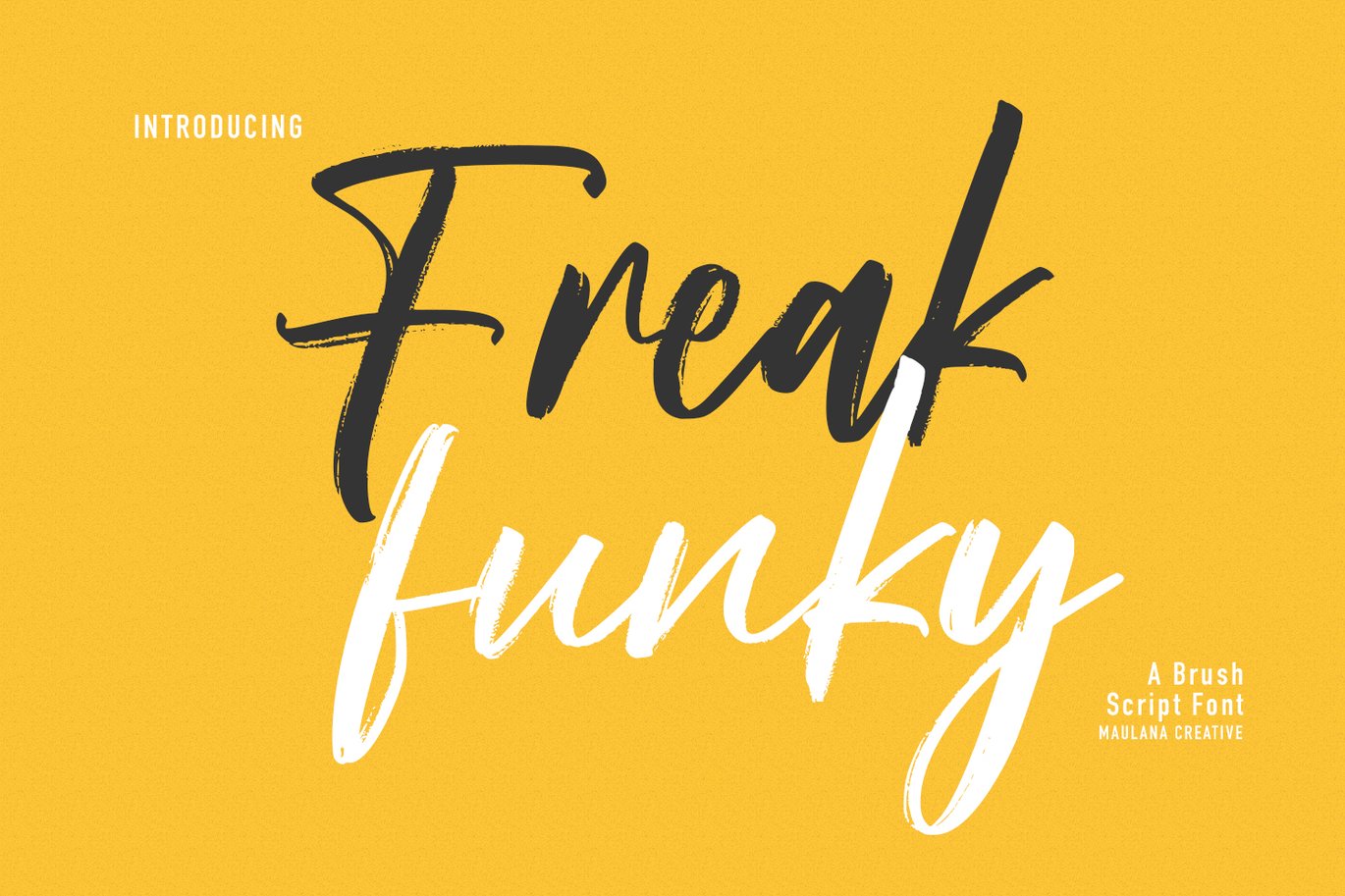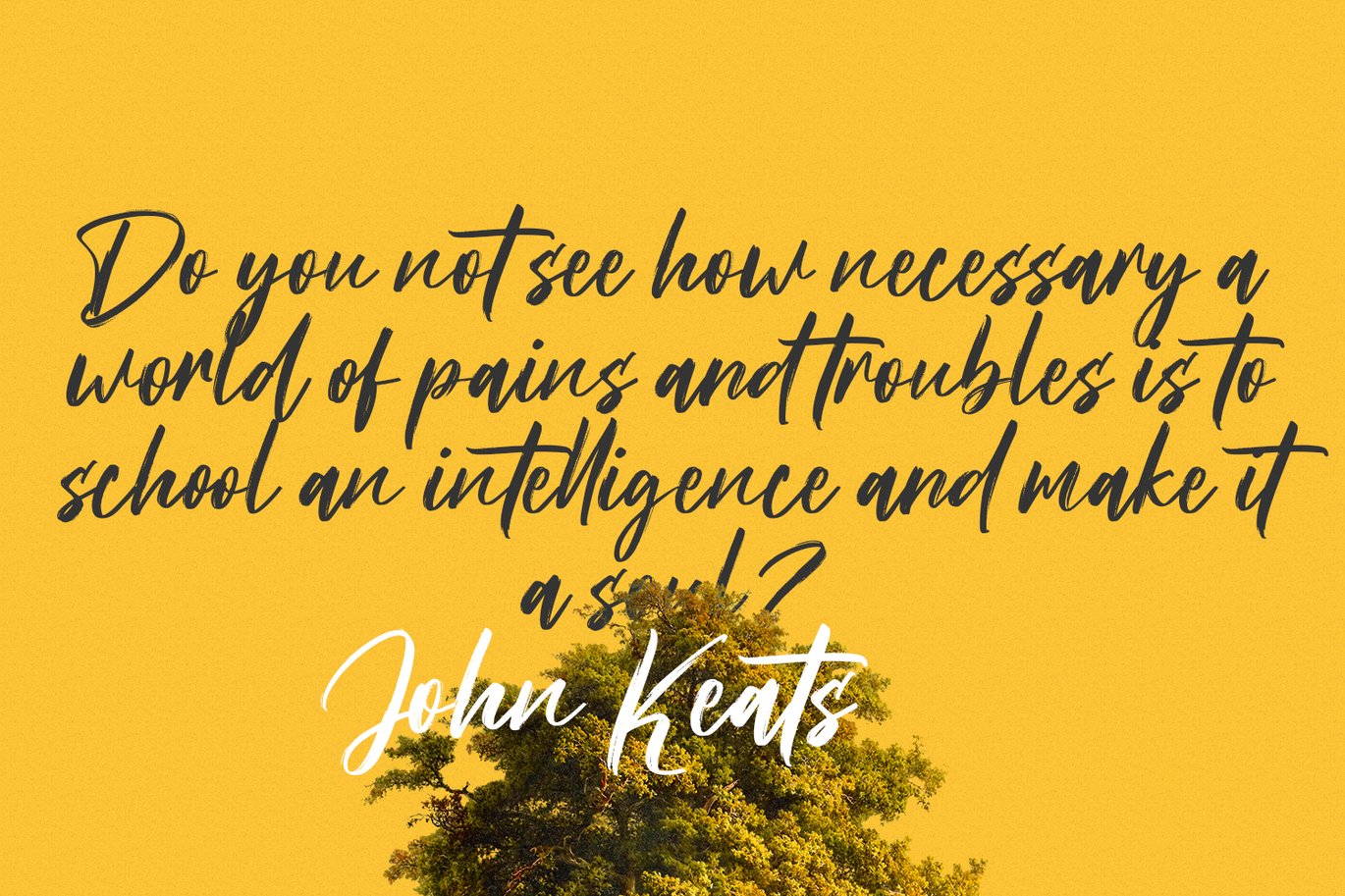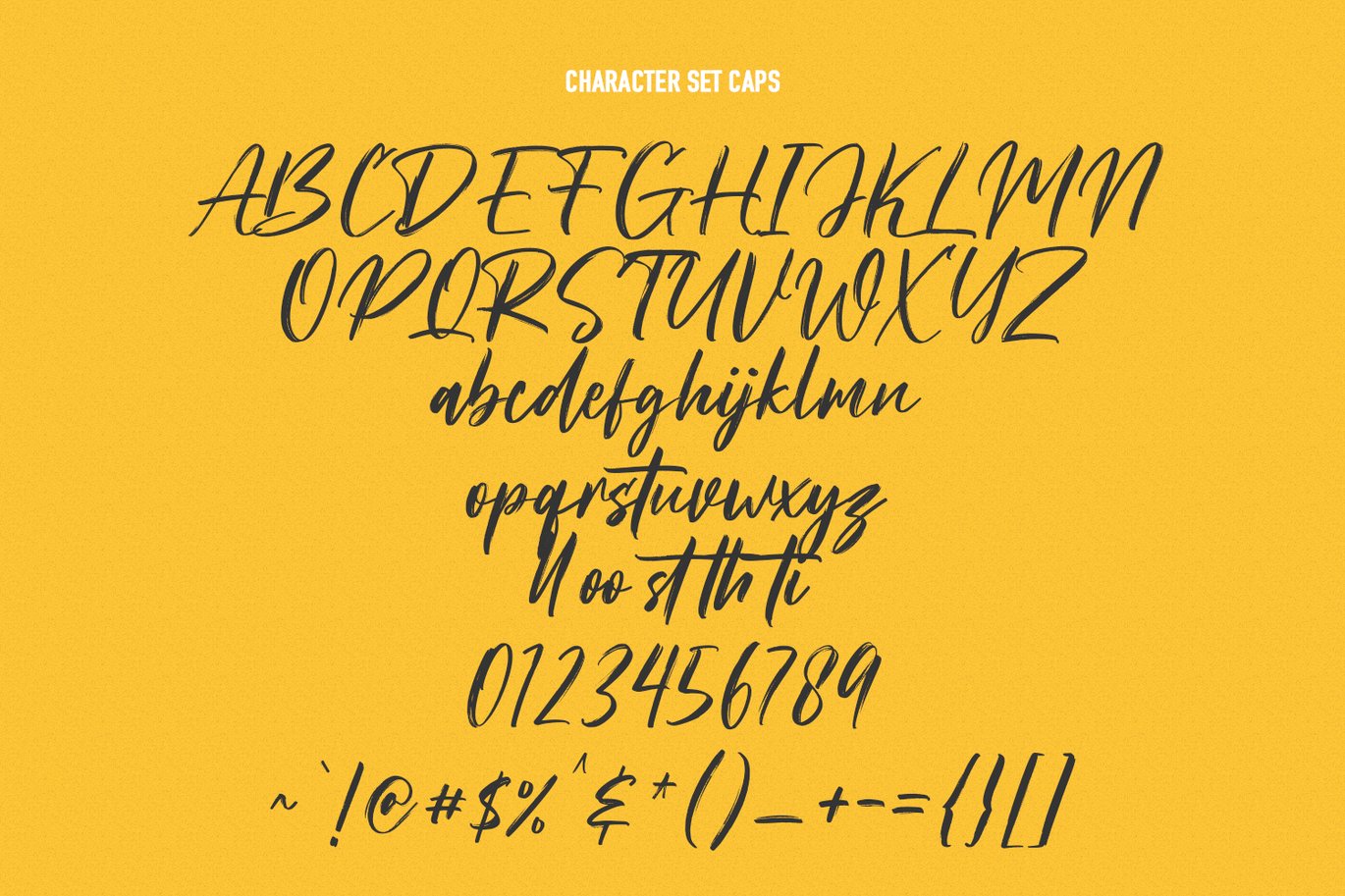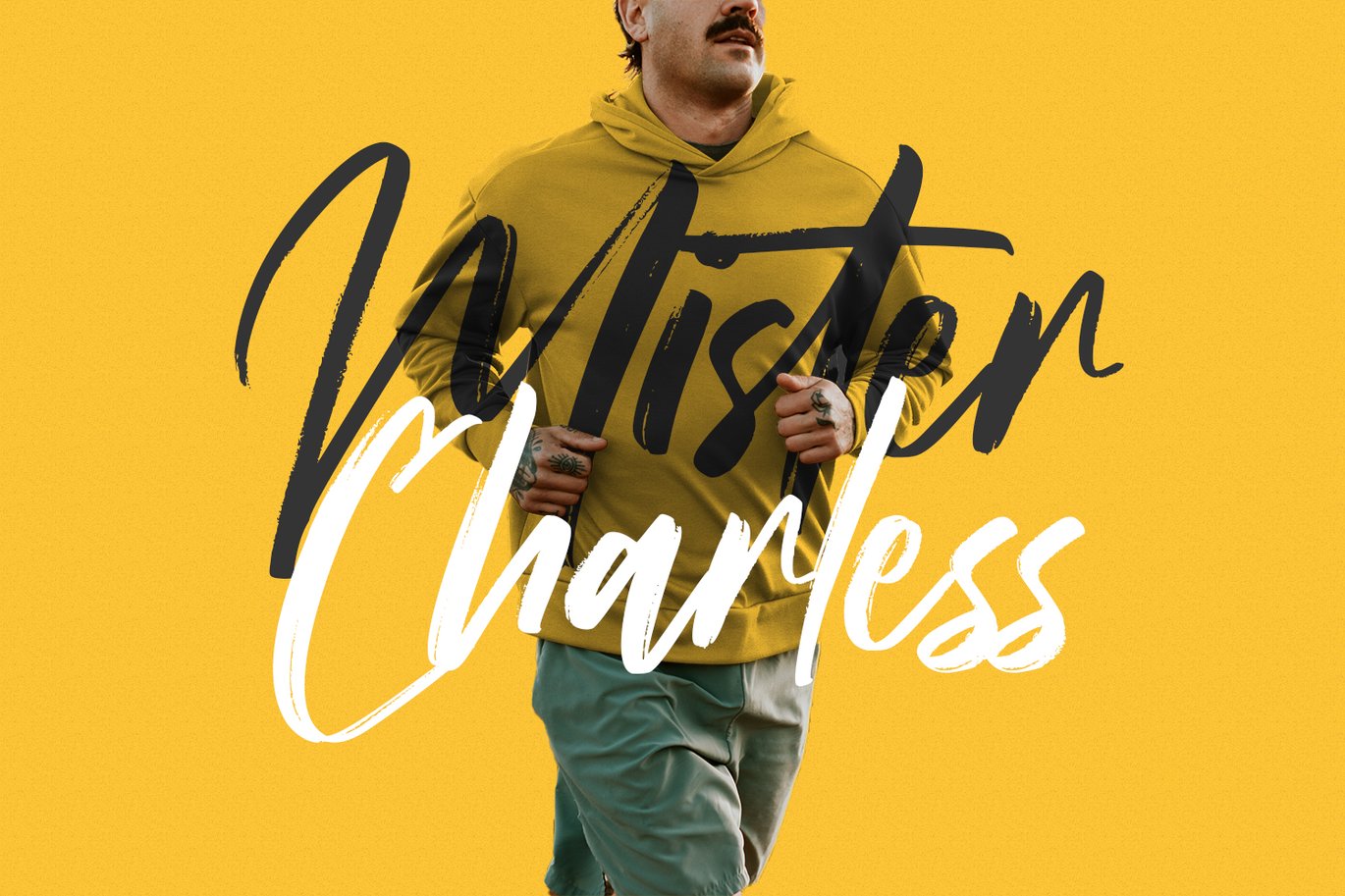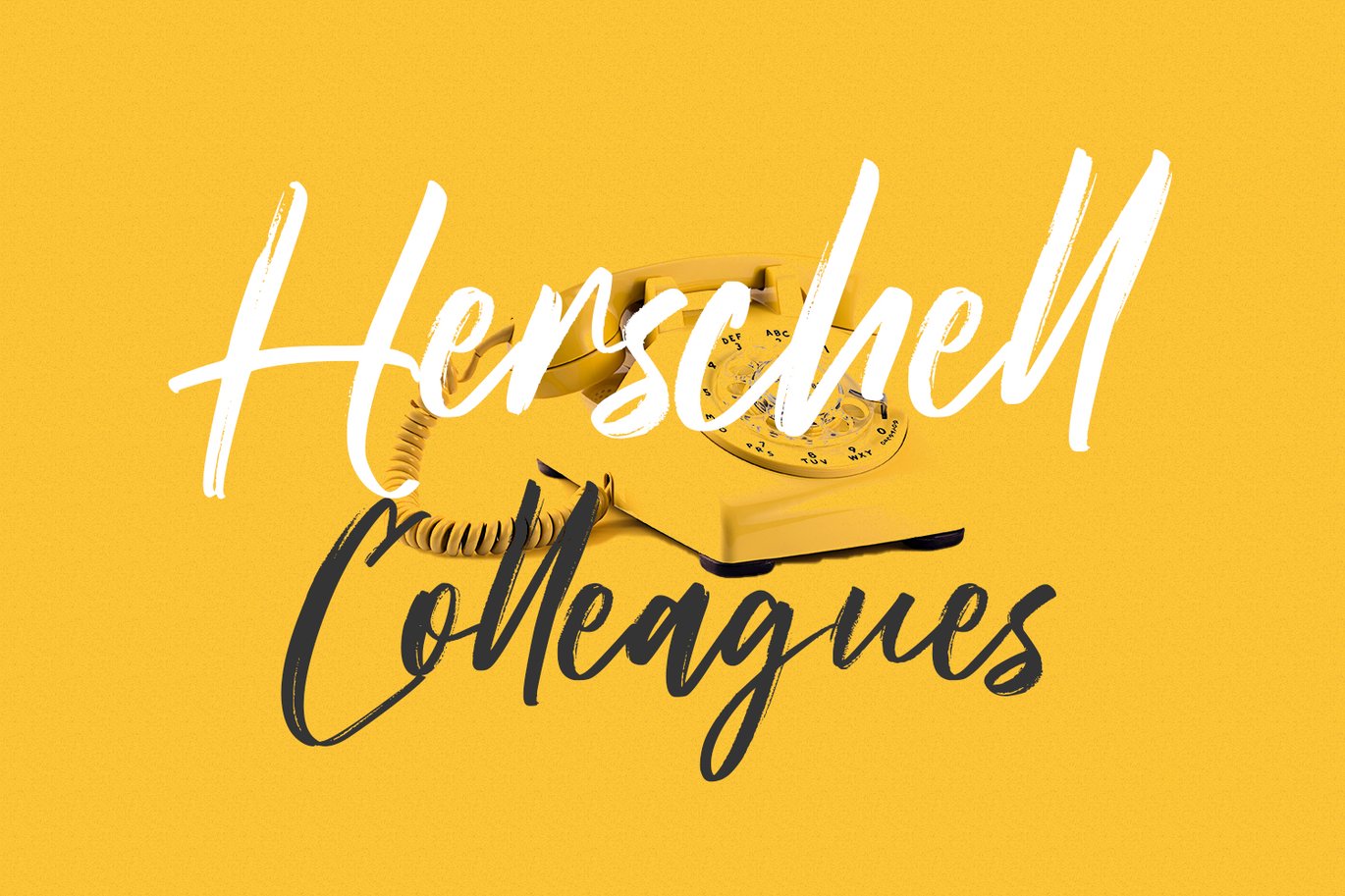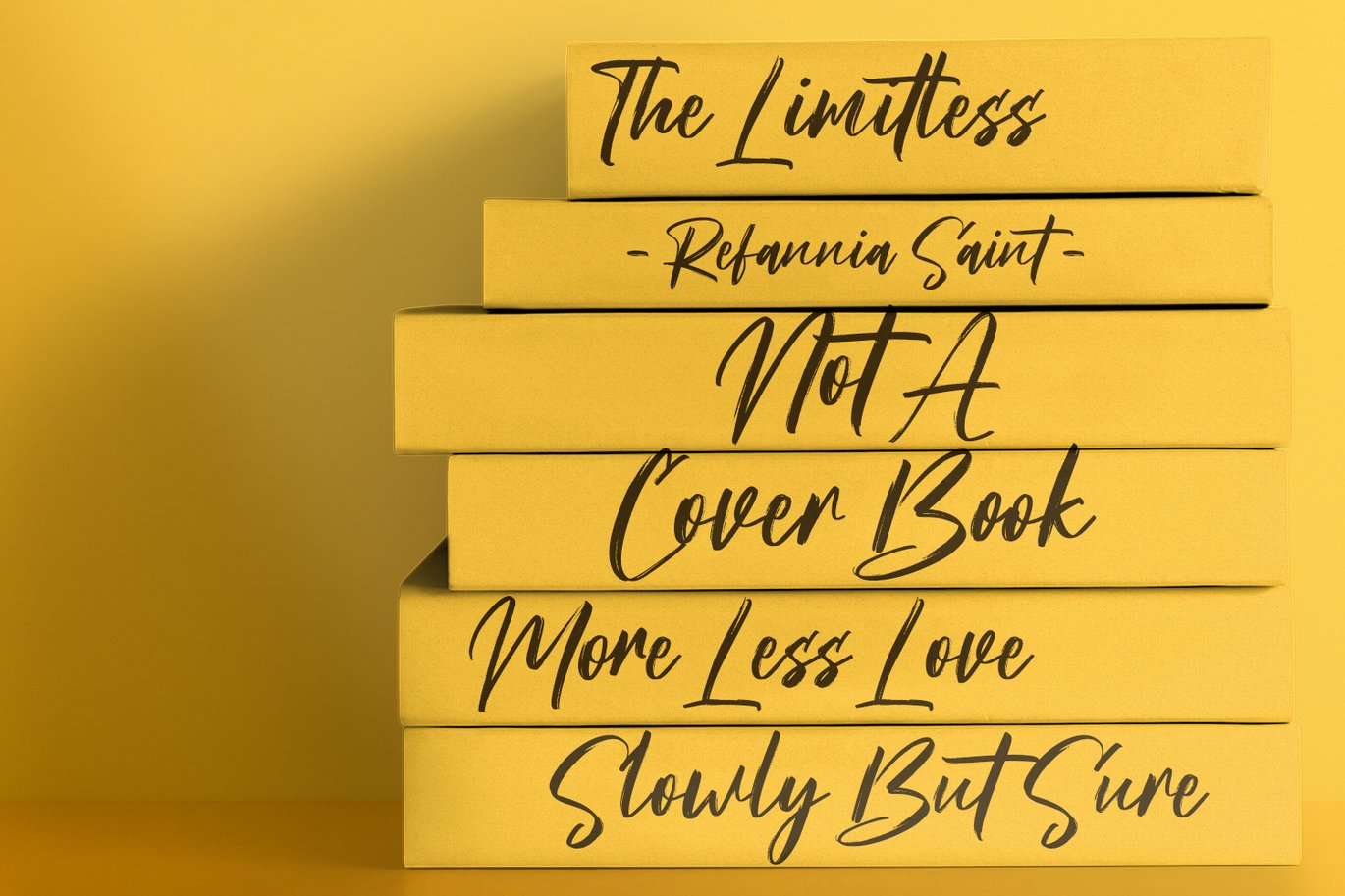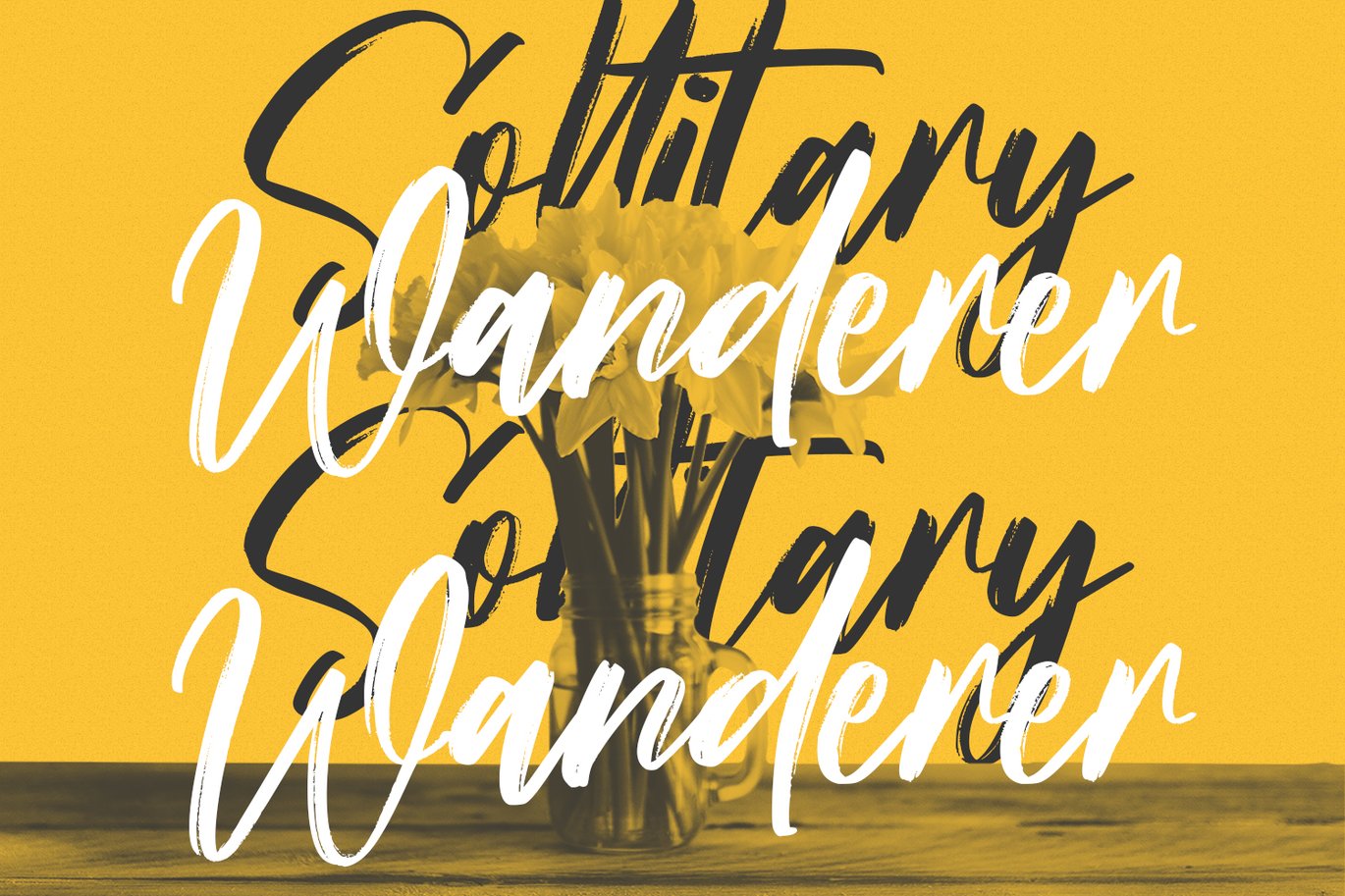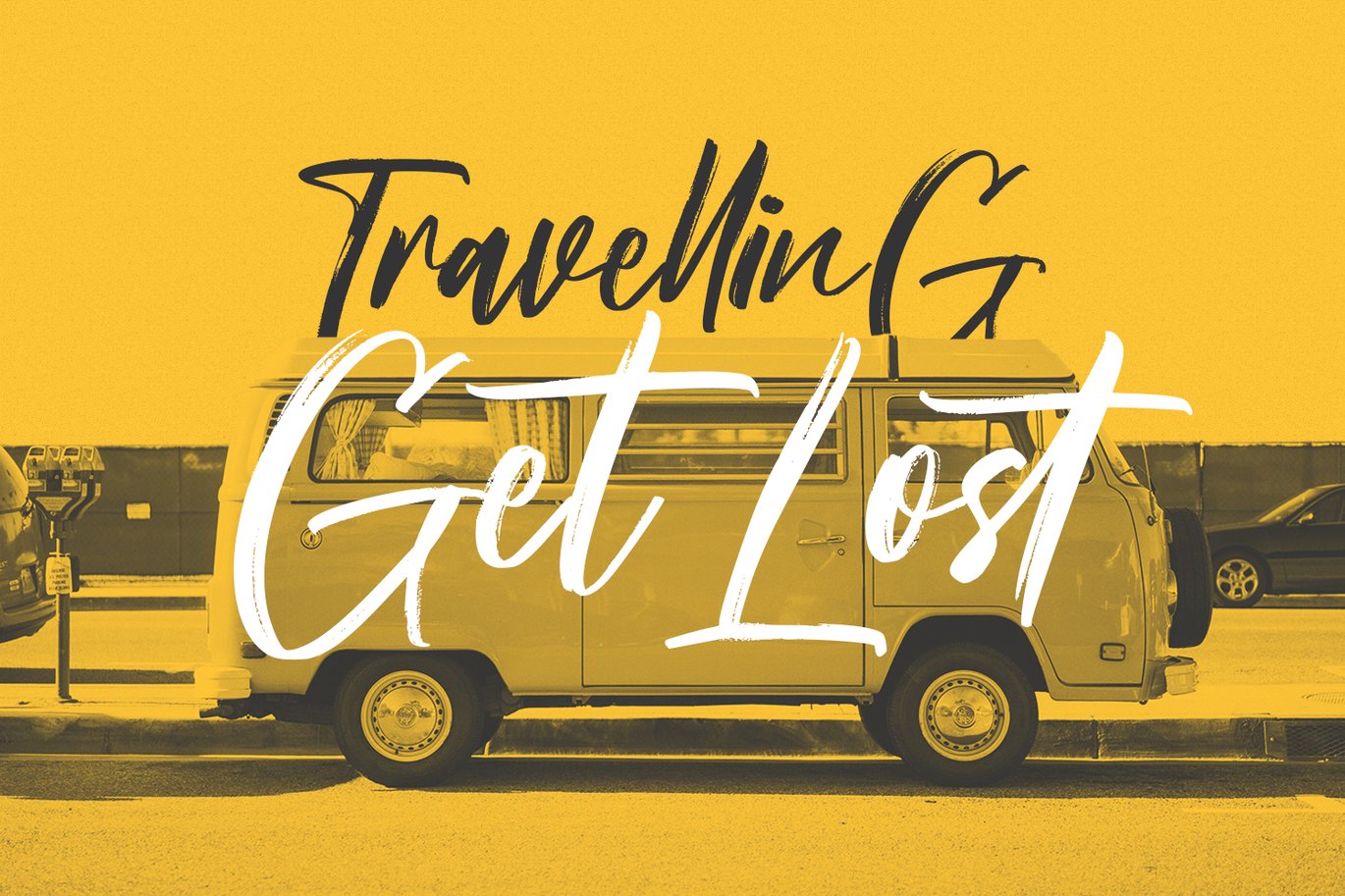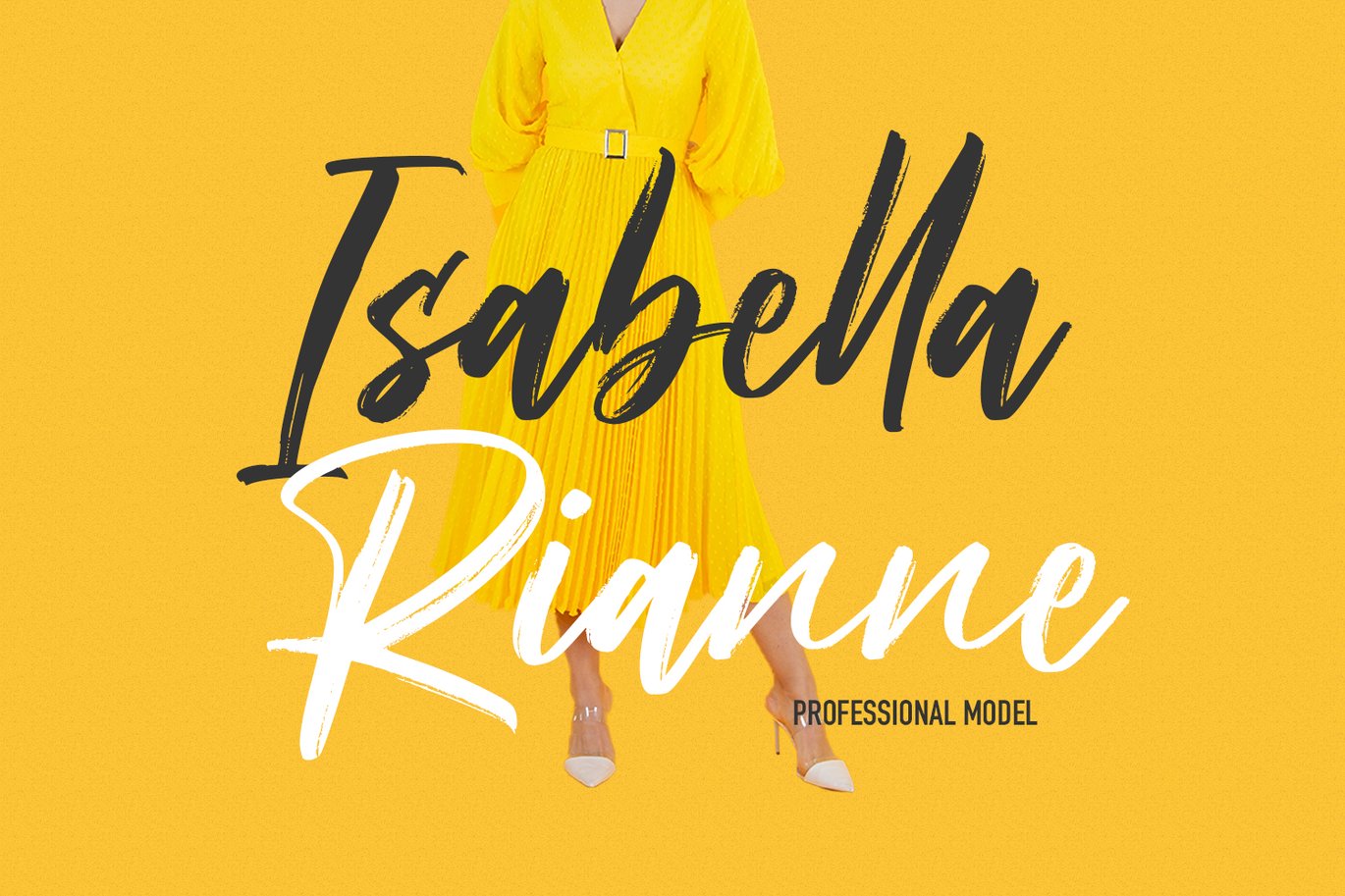
Freak Funky Brush Script Font
Freak Funky is a Fancy Brush Script font. With rough brush stroke, slant and fun character with a bit of ligatures and bit of alt lowercase. To give you an extra creative work. Freak Funky font support multilingual more than 100+ language. This font is good for logo design, Social media, Movie Titles, Books Titles, a short text even a long text letter and good for your secondary text font with sans or serif. Make a stunning work with Freak Funky font.